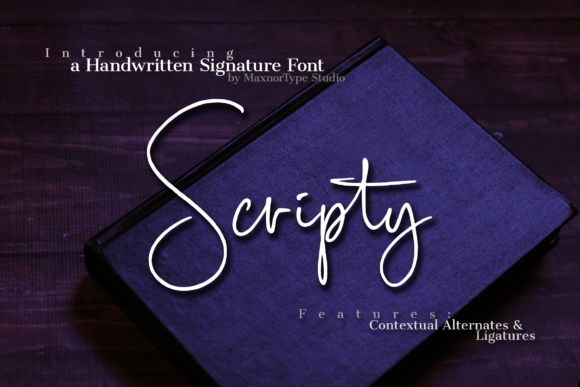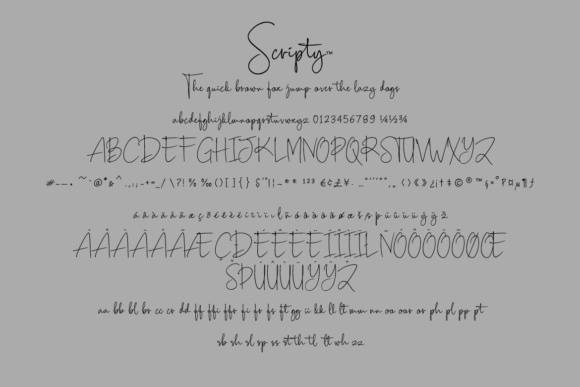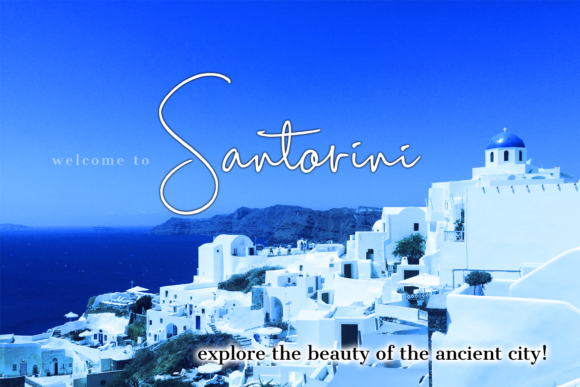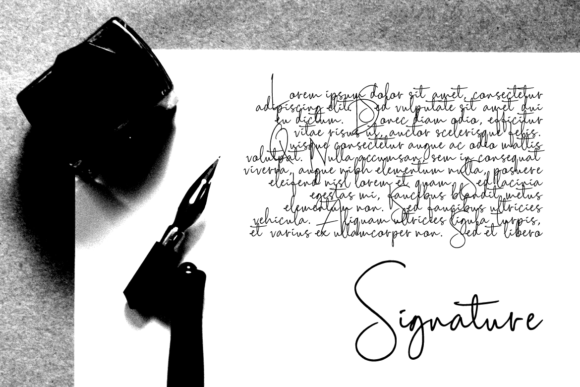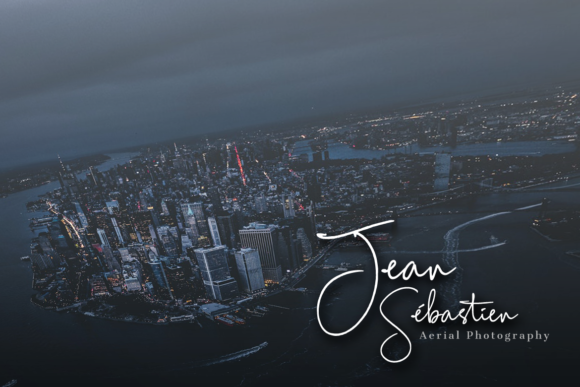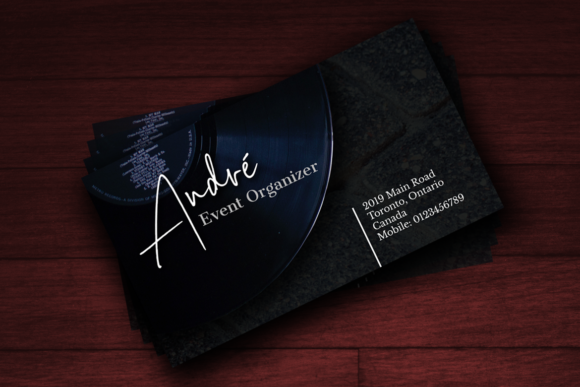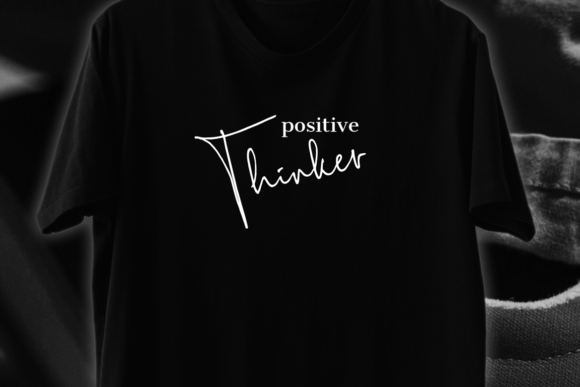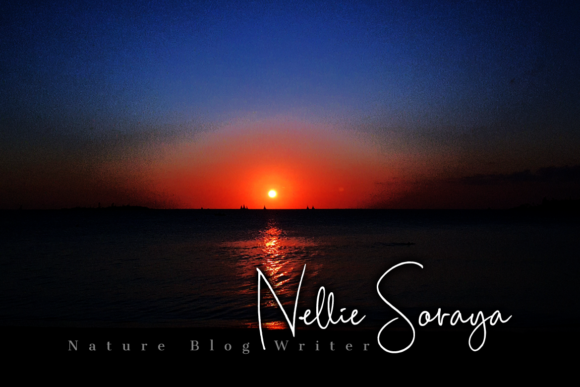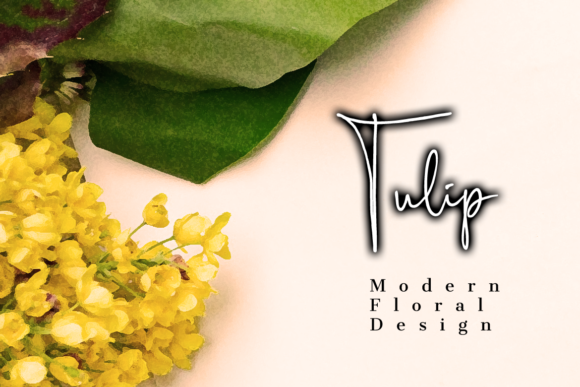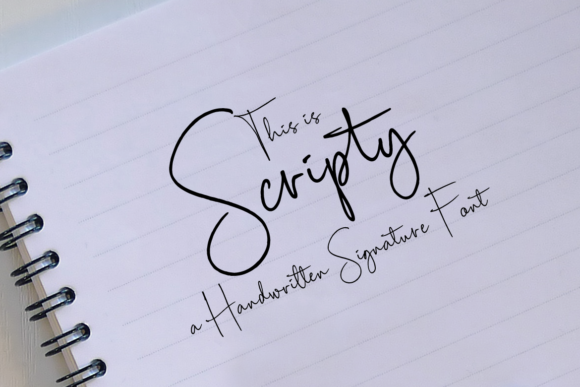
Scripty Font
About Scripty Font
The Scripty is a handwritten signature font. It has a natural handwritten style and is perfect for logos, branding, business cards, watermarks, and much more!